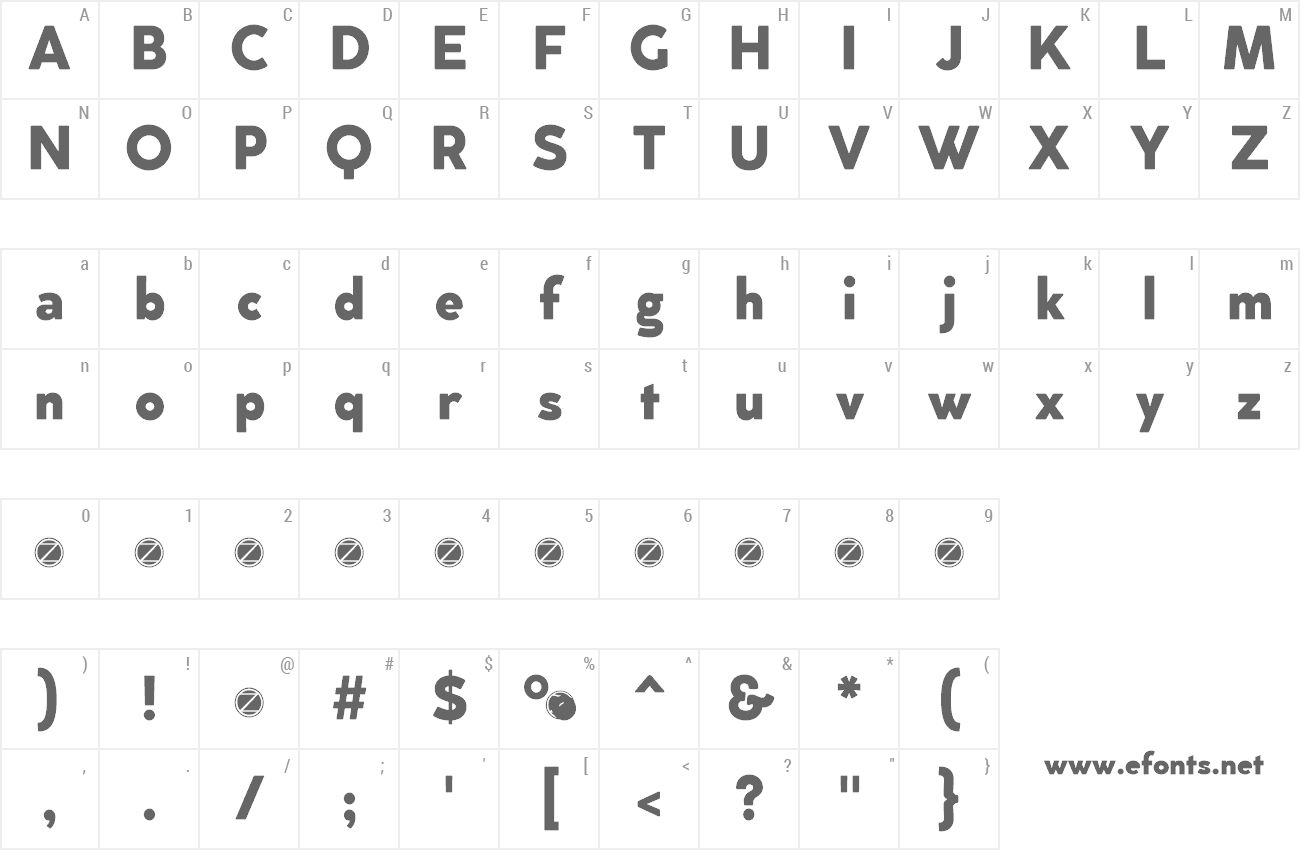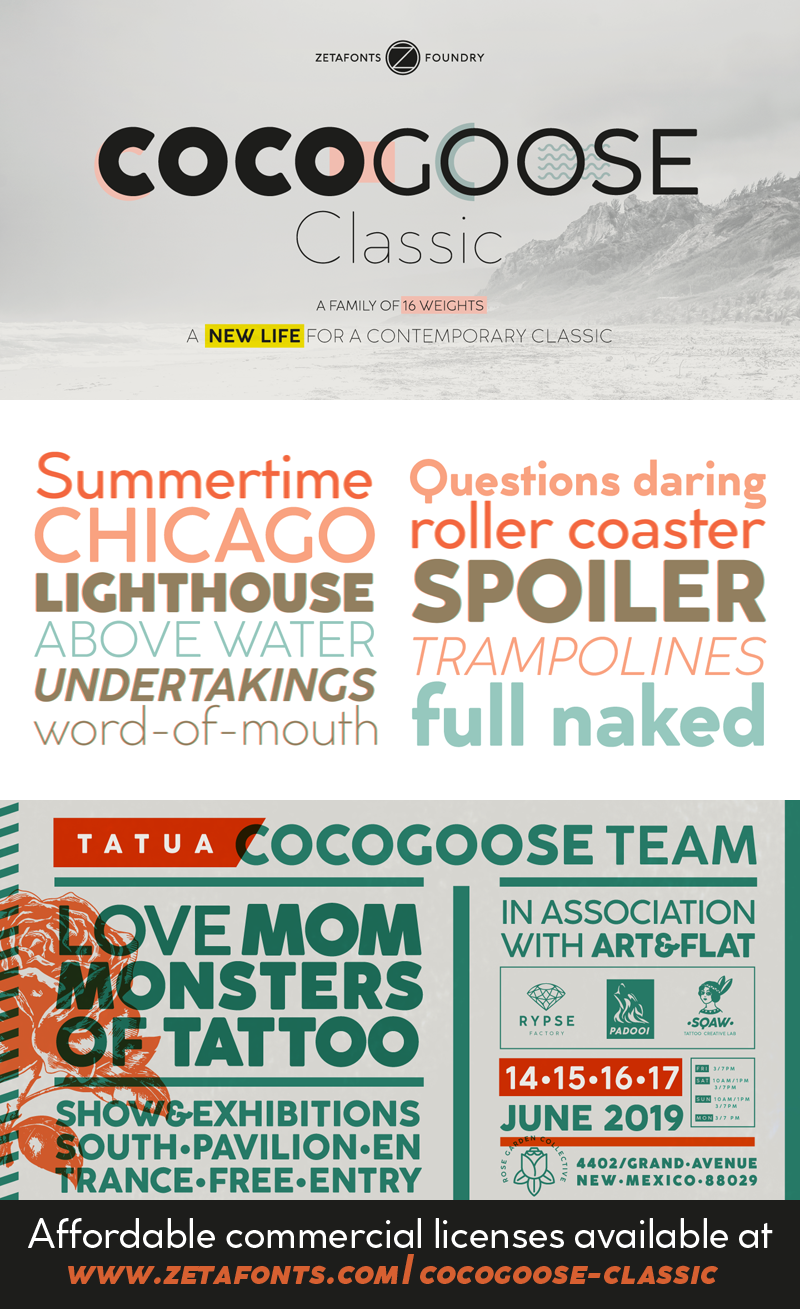
Preview and download Cocogoose Classic Font. Created by Zetafonts in Basic Sans serif styles with Free for personal use license.
This font is for PERSONAL/NON-COMMERCIAL USE ONLY! Download full version and commercial license: https://www.zetafonts.com/cocogoose-classic For more info about our licenses: https://www.zetafonts.com/licensing ---- Created as a display typeface Cocogoose is one of Zetafonts most loved typefaces. Now the team is proud to release a new variant subfamily: Cocogoose Classic, featuring 8 weights and matching italics. Cocogoose Classic keeps the original design for uppercase characters while developing a new design for lowercase, with a smaller x-height, round dots and expanded open-type features, including positional numerals, alternate forms, and extended ligatures, bringing the glyph count to over 1000 glyphs. Its strong, modernist look makes Cocogoose Classic not only perfect for logos and headings, but also very readable as a text font. |